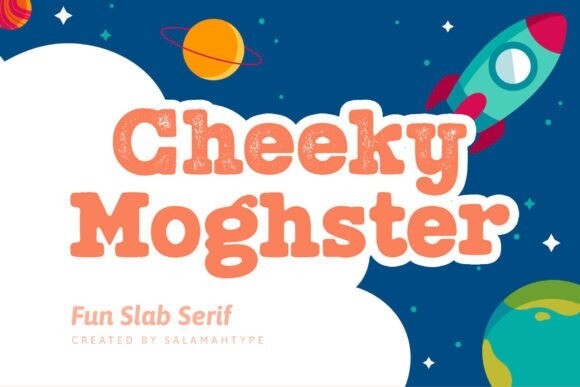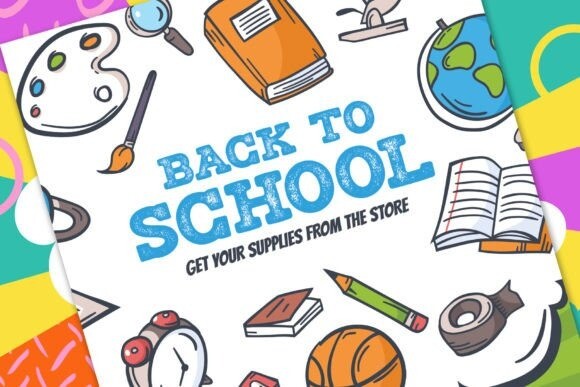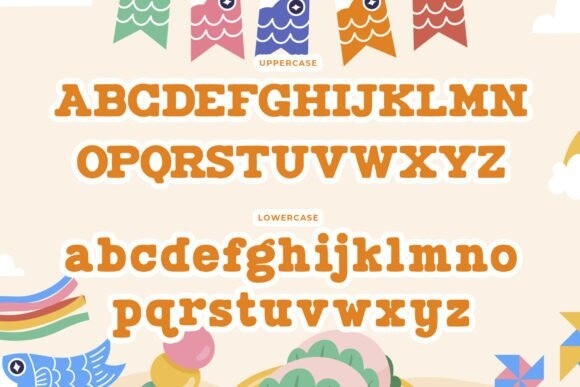
Cheeky Moghster Font
Cheeky Moghster Font is a fun slab serif font mixed with vintage style. Whatever the topic, this font will be a wonderful asset to your font library, as it has the potential to enhance any creation.